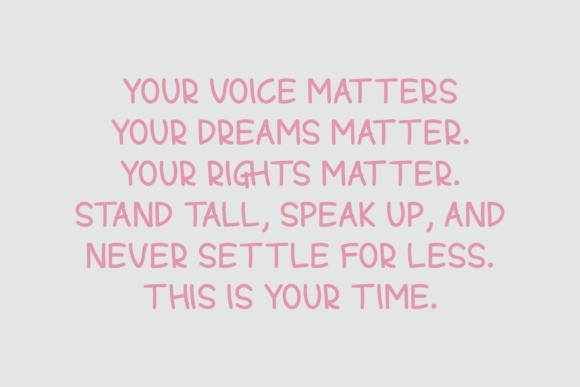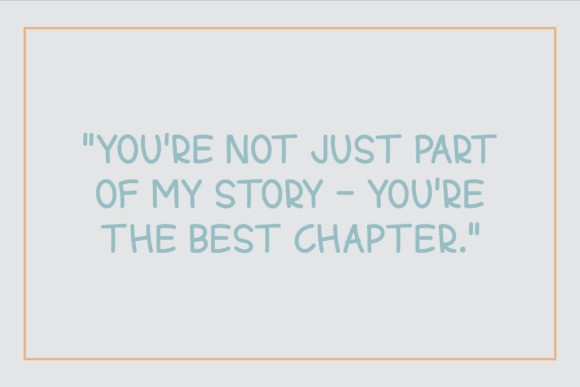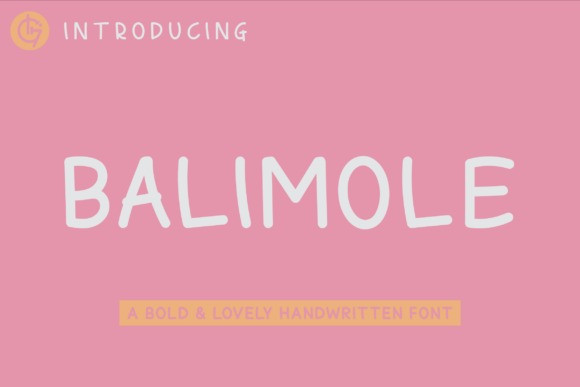
Balimole Font
Balimole Font, a handwritten font that combines a strong, bold presence with a charming, personal touch. Ideal for branding, packaging, social media, and print, its unique style adds warmth and authenticity to any design. Achieve a professional yet approachable aesthetic with it.